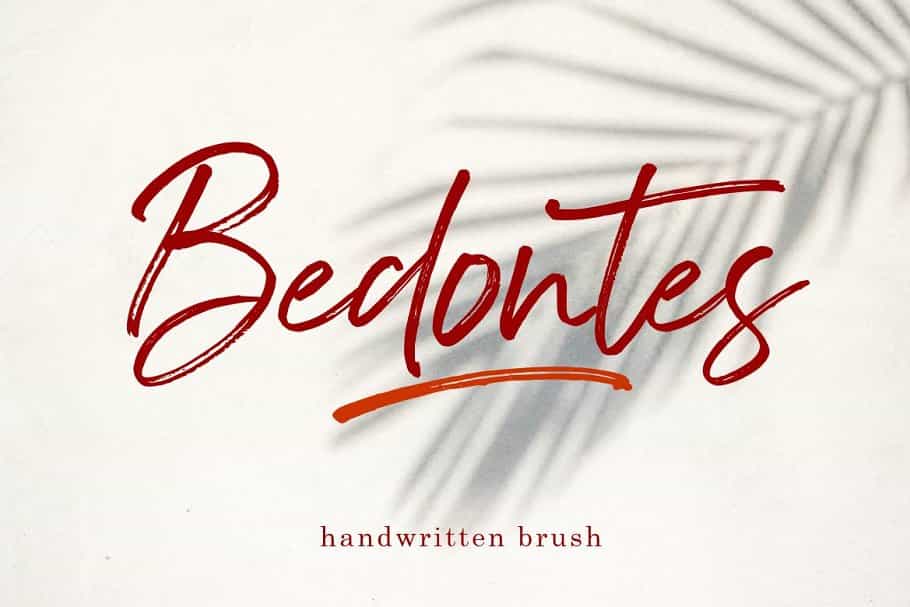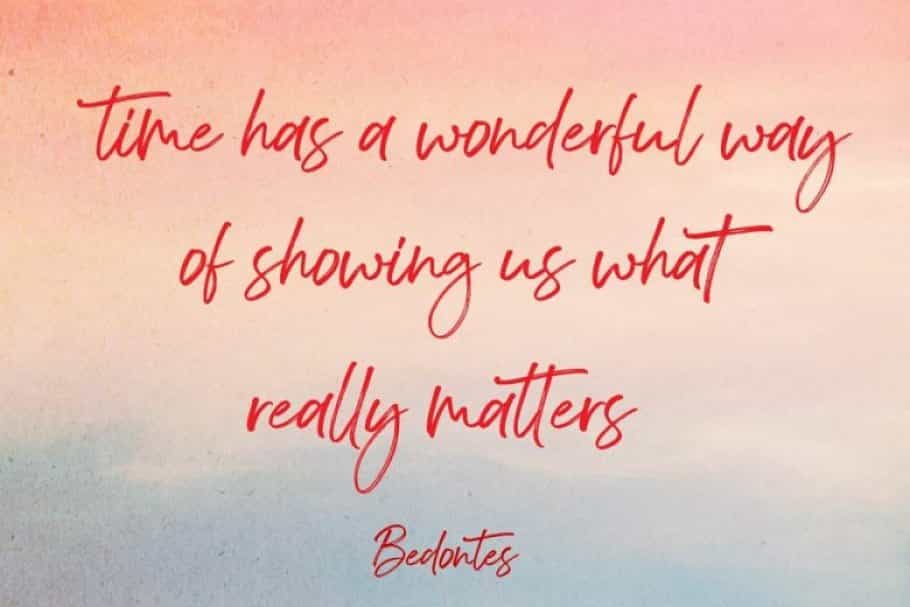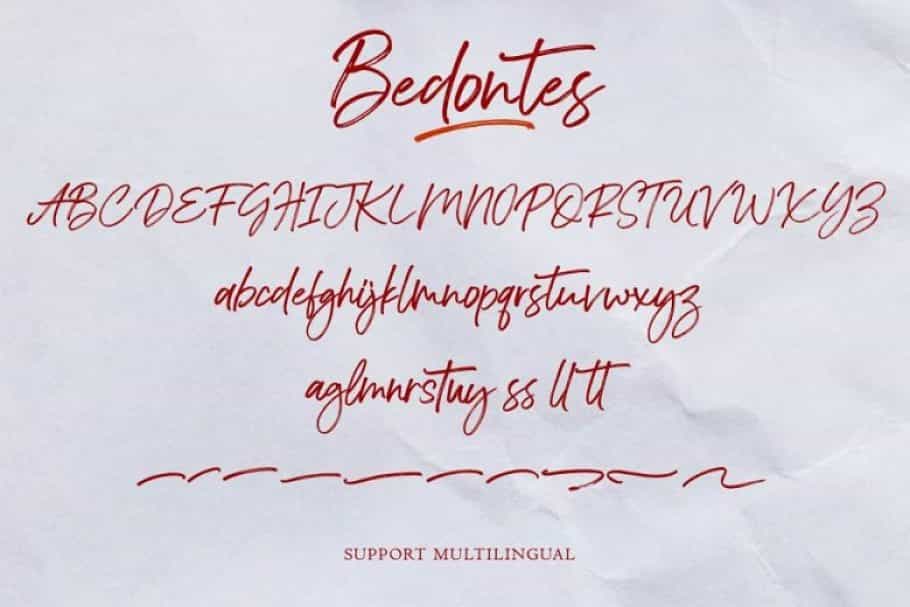
Discover Bedontes Handwritten Brush Font, part of the Brush Handwritten Script collection—a versatile and unique font perfect for adding a personal touch to your projects. Download it for free and enjoy crafting designs with style, from invitations to social media posts. This font is available exclusively for personal use, giving you the freedom to create without limits. Unlock your creativity with Bedontes Handwritten Brush Font today!
Bedontes is a elegant brush script font, that is drawn by brush pen and has a nice contrast between thin and thick strokes. To transfer this script into computer I employed the use of paper to vector. My objective was to create true brush font which would be able to keep slight irregularities and abrasion; appropriate for tasks that demand handwritten text.